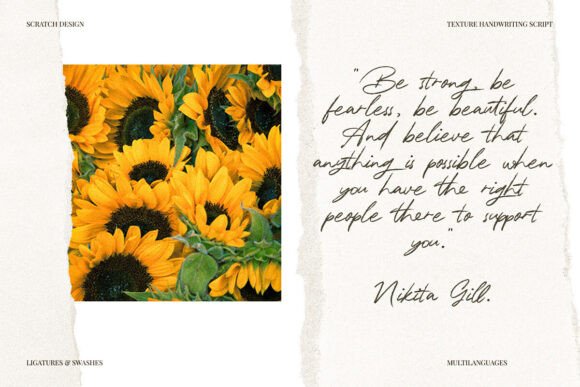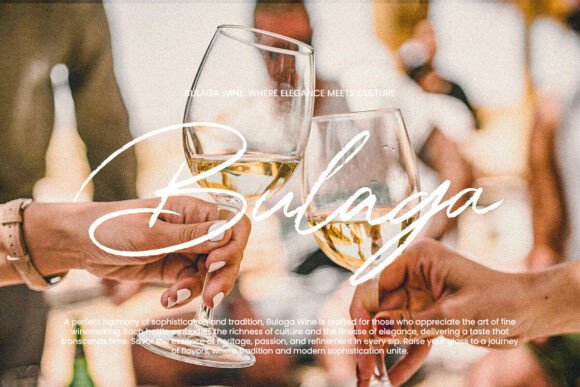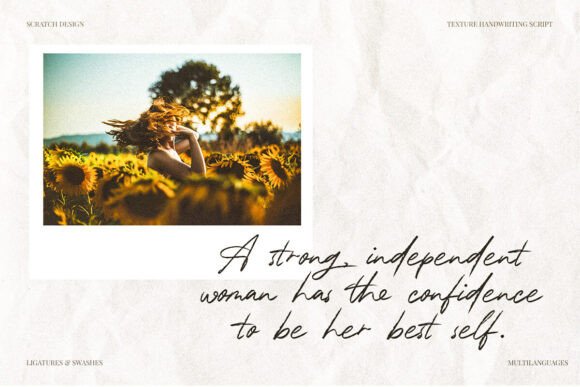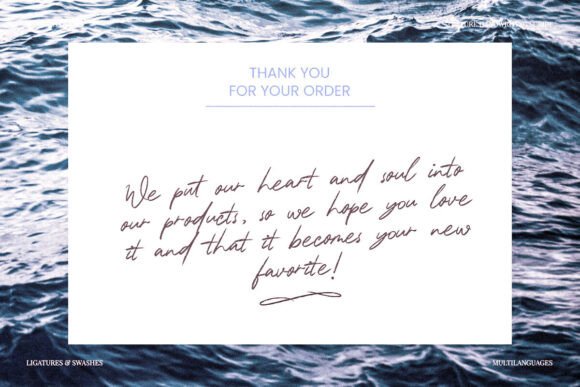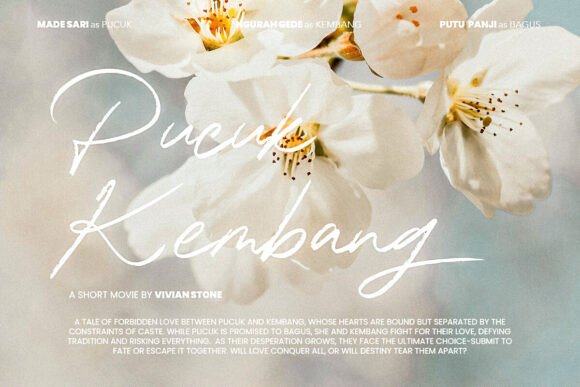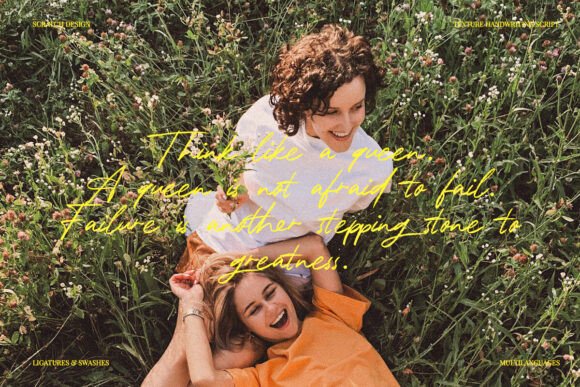
Introduction to Rallys Font
Have you ever been in the middle of a creative project, struggling to find the perfect font to bring your vision to life? The search for the ideal design resource can be a tedious task, especially when you’re looking for something that exudes elegance and sophistication. That’s where Rallys Font comes in – a beautifully crafted, handwritten script font that’s sure to elevate your designs and leave a lasting impression.
With its natural ink strokes and authentic hand-drawn feel, Rallys Font is the perfect solution for designers looking to add a high-quality, personal touch to their work. Whether you’re designing wedding invitations, stylish stationery, or signature logos, this versatile font is sure to impress. And with its transparent background, you can easily place your designs on any background, making it a valuable addition to your design library.
Rallys Font is more than just a design resource – it’s a game-changer. With its range of ligatures, expressive swashes, and full multilingual support, this font is perfect for any creative project that calls for a relaxed yet sophisticated script. And the best part? It’s available for free download, making it an essential tool for every designer’s arsenal.
Rallys Font
- High-quality design: Rallys Font is designed with precision and care to provide a professional and elegant look for your creative project.
- Transparent background: This font features a transparent background, allowing you to easily place it over any image or design without any unwanted background elements.
- Large character set: This font includes a wide range of characters, including uppercase and lowercase letters, numbers, and punctuation marks, making it suitable for various design projects.
- High-resolution design: Rallys Font is designed at a high resolution of 300 DPI, ensuring that it looks crisp and clear when used in various design applications.
- Perfect for design projects: Rallys Font is an excellent choice for designers working on creative projects, such as logos, branding materials, and typography-based designs.
Honest Review: Rallys Font
As a designer, I’m always on the lookout for high-quality design resources to elevate my creative projects. I recently stumbled upon the Rallys Font, and I’m excited to share my honest review.
- ✨ Unique and modern design aesthetic that’s perfect for modern branding and marketing materials
- ✨ Highly legible, even at small font sizes, making it ideal for digital displays
- ✨ Transparent background, allowing for easy color matching and design flexibility
- ⚠️ Limited language support, which may be a concern for designers working on international projects
- ⚠️ Not suitable for use in professional printing or high-end design applications
Overall, I’m impressed with the Rallys Font, and I think it’s a valuable resource for designers looking to add some modern flair to their projects. While it may have some limitations, its unique design and free download make it an excellent choice for many creative applications.
Tips for Getting the Most Out of Rallys Font
Use Rallys Font with a transparent background to create a clean and minimalist design. Experiment with different font sizes and styles to add visual interest to your project. You can also use Rallys Font in combination with other design resources to create a unique and creative visual effect.